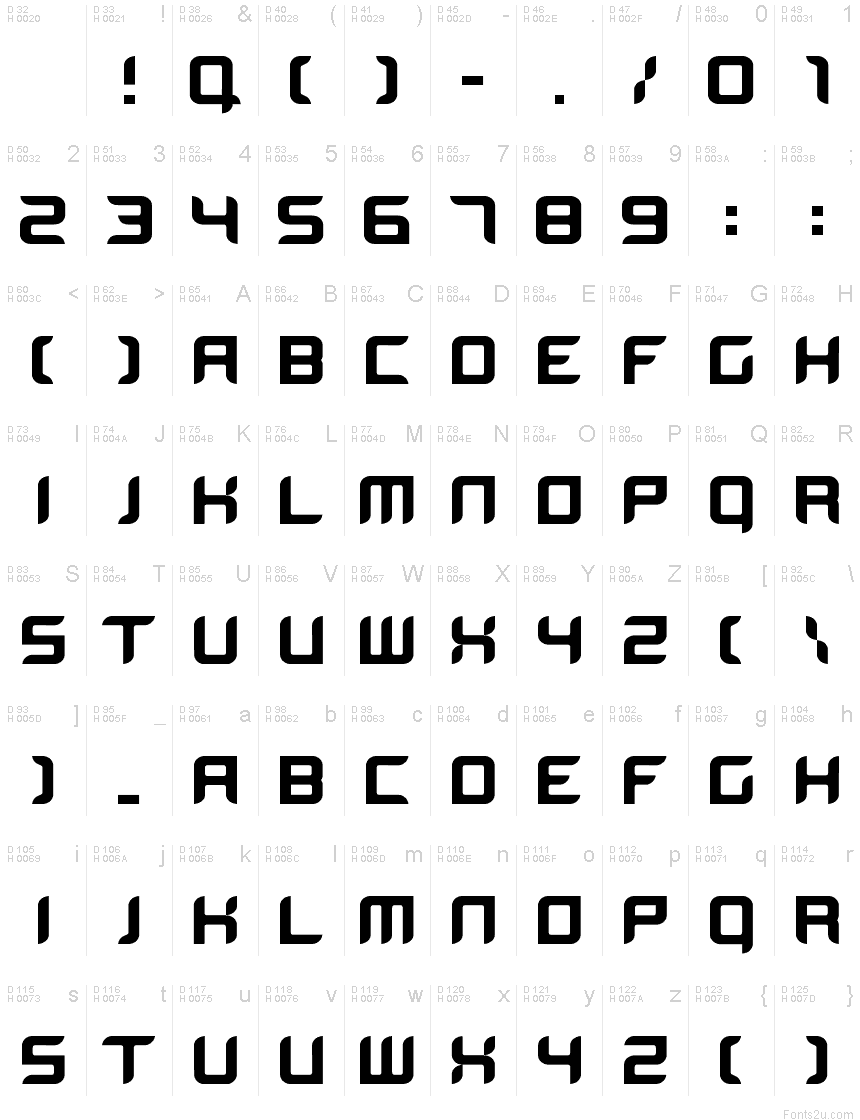
BloodWax
BloodWax font by Adobe Systems Incorporated is a free futuristic display typeface with a chunky, rounded-rectangle build and clean cut-ins that feel like glowing signage carved from plastic. Its wide stance and tight, boxy rhythm give words a bold, engineered presence—smooth, but a little menacing, like a sci‑fi logo stamped into a panel.
Using BloodWax, you’ll get fast impact on game titles, cyberpunk posters, tech event flyers, album covers, esports branding, film headers, and motion graphics. This free font also shines on stickers and merch where thick shapes need to stay legible at a distance. Pair it with a plain neo-grotesk sans for body copy and let BloodWax handle the big lines.